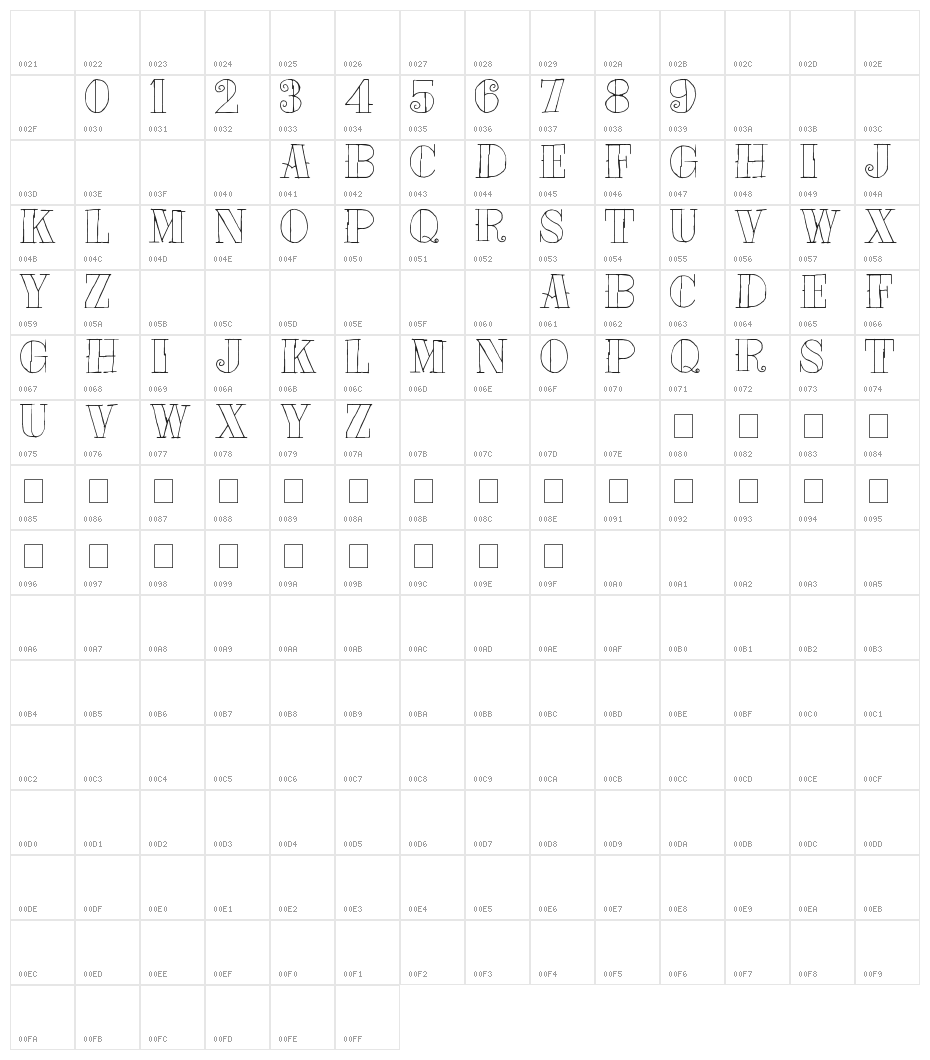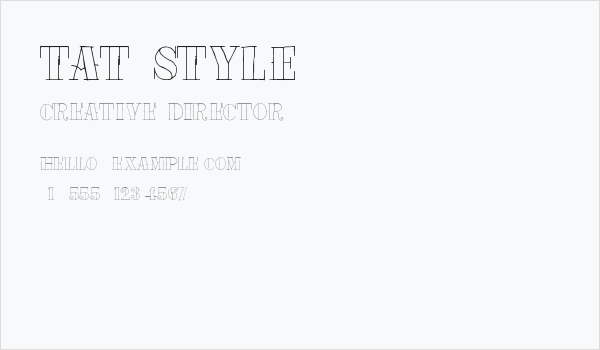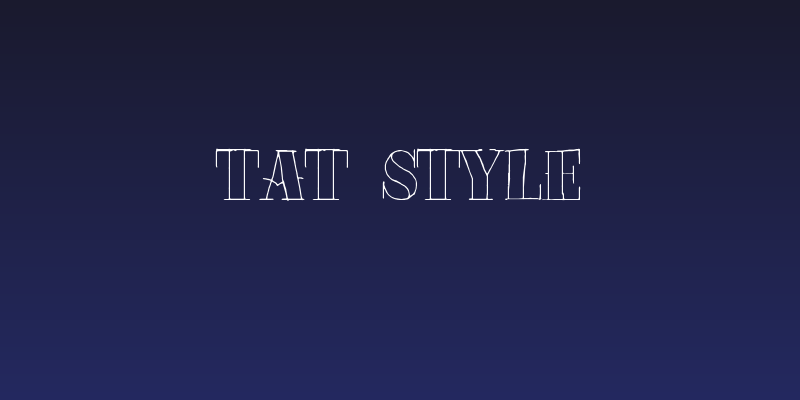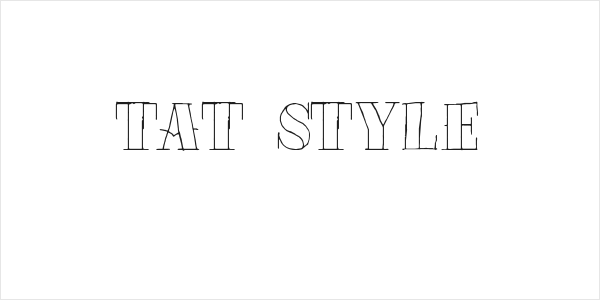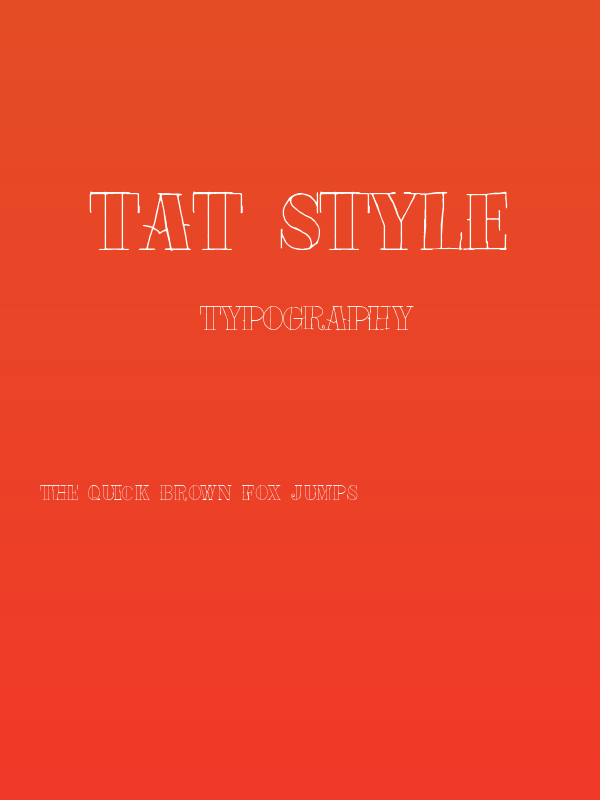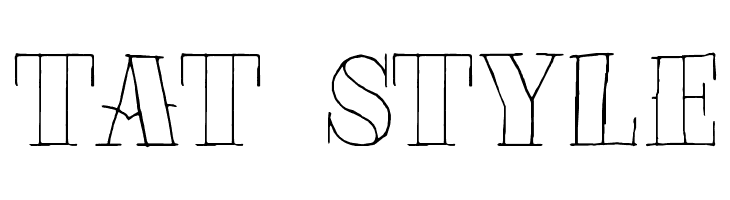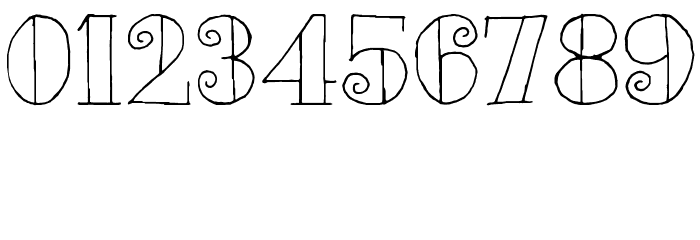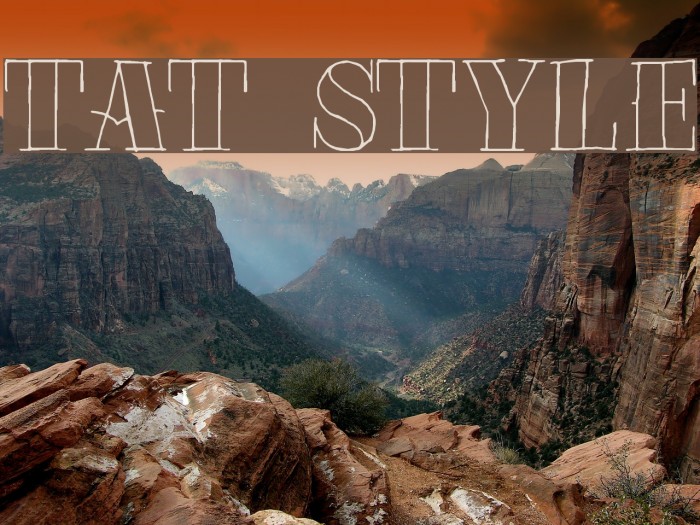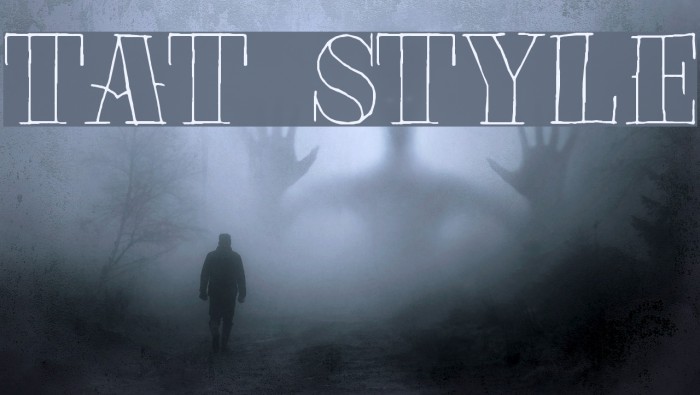
Tat Style Font
Tat Style Description
This font features a unique and artistic design, characterized by its decorative and intricate details. Each letter is crafted with a blend of bold strokes and delicate swirls, creating a whimsical and elegant appearance. The uppercase letters are particularly striking, with their tall and narrow forms accentuated by ornate embellishments. The numerals follow a similar style, maintaining the font's overall cohesive look. This font stands out with its playful yet sophisticated aesthetic, making it suitable for creative and expressive projects.
| Proposed Projects | Ideal for tattoo designs, artistic posters, invitations, and branding that requires a unique and expressive touch. |